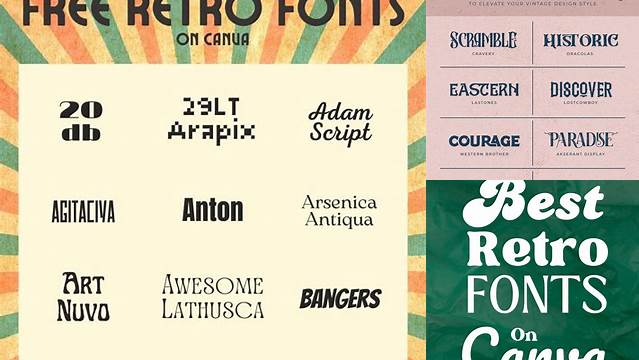
Canva's Best Free Retro Fonts For Vintage Designs
Retro fonts have made a huge comeback, and for good reason! These fonts evoke nostalgia, adding a touch of vintage charm and personality to your designs. If you're looking to infuse your projects with a retro vibe, Canva is an excellent platform to explore. Canva offers a wide selection of free retro fonts that can elevate your designs, whether you're creating social media graphics, posters, logos, or website content. In this guide, we'll dive into the world of retro fonts available on Canva, discuss how to use them effectively, and provide tips for creating stunning vintage-inspired designs.
What are Retro Fonts?
Before we delve into the specific fonts available on Canva, let's first understand what exactly constitutes a retro font. Retro fonts are typefaces that draw inspiration from design trends of past eras, typically ranging from the early 20th century to the 1980s. These fonts often feature distinct characteristics that were popular during their respective time periods. Think of the bold, geometric shapes of Art Deco fonts, the groovy, psychedelic lettering of the 1960s, or the pixelated, futuristic fonts of the 1980s. Retro fonts can instantly transport your audience back in time, creating a sense of nostalgia and familiarity. These fonts often carry an incredible amount of personality and can make your designs stand out. If you are looking to create a vintage feel, then consider using these types of fonts for your titles and headers. Remember that the key to creating an authentic vintage feel with these fonts is to use them sparingly and pair them with other design elements that complement the era you're trying to evoke. For example, a 1950s diner-themed poster might pair a script font with a bold sans-serif, while a 1980s-inspired design might use a neon color palette and a pixelated font. Retro fonts offer a fantastic way to add character and depth to your projects, making them a valuable tool in any designer's toolkit. The sheer variety of styles available means you can find the perfect font to match the mood and message of your design, creating a visually appealing and memorable experience for your audience. Whether you're aiming for a subtle nod to the past or a full-blown vintage aesthetic, Canva's selection of free retro fonts provides plenty of options to experiment with and bring your creative vision to life.
Why Use Retro Fonts in Your Designs?
So, why should you consider using retro fonts in your designs? There are several compelling reasons. First and foremost, retro fonts can add a unique and eye-catching element to your projects. In a world saturated with modern, minimalist designs, a retro font can help your work stand out from the crowd. They can inject personality and character into your projects, making them more memorable and engaging. Retro fonts are excellent for creating a specific mood or atmosphere. If you're designing a poster for a 1950s-themed event, for instance, a classic script or serif font from that era can instantly set the tone. Similarly, a bold, geometric font reminiscent of the Art Deco period can add a touch of elegance and sophistication to your designs. Nostalgia is a powerful emotion, and retro fonts can tap into that feeling, creating a connection with your audience. By using fonts that evoke a sense of the past, you can resonate with viewers who have fond memories of those eras. This can be particularly effective in marketing campaigns or branding materials that aim to create a sense of heritage or authenticity. Retro fonts are versatile and can be used in a wide range of applications, from website headers and logos to posters and social media graphics. Their versatility makes them a valuable asset for designers working on diverse projects. With Canva's extensive library of free retro fonts, you have a wealth of options at your fingertips to experiment with and incorporate into your work. Using retro fonts effectively often involves balancing them with more modern elements to avoid an overly dated look. For example, pairing a vintage script font with a clean sans-serif for body text can create a sophisticated and balanced design. Remember, the goal is to enhance your design, not to overwhelm it with nostalgia. A well-chosen retro font can be the perfect finishing touch, adding character and visual interest to your project while maintaining a contemporary feel.
Popular Free Retro Fonts on Canva
Canva offers a fantastic array of free retro fonts, each with its own unique personality and style. Let's take a look at some popular options that you can use to add a vintage touch to your designs. Amatic SC is a condensed sans-serif font that exudes a playful and casual retro vibe. Its slightly quirky letterforms make it perfect for headlines, posters, and social media graphics. Amatic SC is particularly well-suited for designs that aim for a fun, approachable aesthetic. Bebas Neue is another popular sans-serif font that boasts clean lines and a tall, condensed design. Its modern yet retro feel makes it a versatile choice for a wide range of projects. Bebas Neue is often used in headlines, logos, and website banners, adding a touch of sophistication and elegance. League Gothic is a classic sans-serif font with a strong, geometric structure. Inspired by early 20th-century typography, League Gothic brings a sense of vintage authority to your designs. It's an excellent choice for posters, flyers, and headlines that demand attention. Oswald is a versatile sans-serif font that combines classic proportions with a contemporary feel. Its rounded letterforms give it a friendly and approachable vibe, while its overall structure ensures excellent legibility. Oswald works well in both headlines and body text, making it a practical choice for a variety of projects. Playfair Display is an elegant serif font with high contrast and delicate serifs. Its vintage charm makes it perfect for creating sophisticated designs with a touch of old-world glamour. Playfair Display is often used in headlines, invitations, and branding materials. Pacifico is a beautiful script font that evokes the carefree spirit of mid-century America. Its flowing letterforms and playful curves make it ideal for designs that aim for a retro, handwritten feel. Pacifico is often used in logos, posters, and social media graphics. Permanent Marker is a bold, handwritten font that exudes a raw and authentic energy. Its marker-style letterforms bring a touch of grunge and personality to your designs. Permanent Marker is a great choice for posters, flyers, and social media graphics that need to stand out. These are just a few examples of the many free retro fonts available on Canva. Remember to experiment with different fonts and combinations to find the perfect style for your project. Consider the overall mood you want to create and choose fonts that align with your vision. Don't be afraid to mix and match fonts to add visual interest and create a unique look. By exploring Canva's extensive font library and experimenting with different options, you can discover hidden gems and create stunning retro-inspired designs.
Tips for Using Retro Fonts Effectively
Using retro fonts effectively requires a bit of finesse. While these fonts can add character and charm to your designs, they can also appear dated or overwhelming if not used correctly. Here are some tips to help you incorporate retro fonts into your projects seamlessly. Pair retro fonts with modern elements to create a balanced and contemporary design. For example, combine a vintage script font with a clean sans-serif for body text. This approach ensures that your design feels both nostalgic and fresh. Avoid using too many retro fonts in a single design. Overusing vintage typefaces can make your design look cluttered and dated. Stick to one or two retro fonts and complement them with simpler, more modern fonts. Consider the context of your design when choosing a retro font. A font that works well for a vintage-themed poster might not be suitable for a corporate presentation. Select fonts that align with the overall message and purpose of your design. Pay attention to legibility. While retro fonts can be visually appealing, it's essential to ensure that your text remains easy to read. Choose fonts that are clear and legible, especially for body text. Adjust the font size and spacing to improve readability if necessary. Use color palettes that complement the era you're trying to evoke. For example, pastel colors and muted tones often work well with 1950s-inspired fonts, while neon colors and bold hues can enhance 1980s-themed designs. Experiment with different font combinations to create visual interest. Try pairing a bold retro font with a delicate script or a geometric sans-serif with a handwritten typeface. Don't be afraid to break the rules and explore unconventional combinations. Use retro fonts sparingly to create emphasis. A retro font can be a powerful tool for highlighting key words or phrases in your design. Use it for headlines, subheadings, or calls to action to draw the viewer's attention. Consider the overall aesthetic of your design. Retro fonts should complement your other design elements, such as images, illustrations, and graphics. Ensure that your fonts work harmoniously with the rest of your design to create a cohesive and visually appealing composition. Get inspired by vintage designs. Look at old posters, advertisements, and packaging designs for inspiration. Study how designers of the past used retro fonts and incorporate those techniques into your own work. By following these tips, you can effectively use retro fonts to create stunning and memorable designs that capture the essence of vintage typography. Remember that the key is to balance nostalgia with modernity, creating designs that feel both timeless and contemporary.
Examples of Designs Using Retro Fonts on Canva
To further illustrate the versatility of retro fonts on Canva, let's explore some examples of how these typefaces can be used in various design projects. Imagine you're creating a poster for a 1950s-themed diner. You could use a classic script font like Pacifico for the diner's name and a bold sans-serif font like Bebas Neue for the menu items. Combine this with vintage-inspired illustrations and a pastel color palette to create an authentic retro look. For a design inspired by the 1980s, you might use a pixelated font or a bold, geometric typeface like League Gothic for the headlines. Pair this with neon colors, geometric shapes, and a touch of grunge to capture the edgy aesthetic of the era. Think about designing a logo for a vintage clothing store. An elegant serif font like Playfair Display or a handwritten script font can convey a sense of timeless style and sophistication. Combine the font with a simple, classic logo mark and a muted color palette to create a memorable brand identity. Consider creating social media graphics for a retro music event. Use a combination of retro fonts, such as Amatic SC and Oswald, to create eye-catching headlines and body text. Incorporate vintage-inspired images and a bold color palette to promote the event and attract attendees. For a website header, a bold retro font can create a strong visual impact. Use a font like Bebas Neue or League Gothic for the main headline and pair it with a clean, modern sans-serif font for the body text. This combination will ensure readability while adding a touch of vintage flair. If you are designing an invitation for a vintage-themed wedding, an elegant script font or a classic serif font can set the tone for the event. Use a font like Playfair Display or a delicate script font for the names of the couple and the wedding details. Combine this with a romantic color palette and vintage-inspired illustrations to create a beautiful invitation. These examples demonstrate the wide range of possibilities for using retro fonts on Canva. Whether you're designing posters, logos, social media graphics, or invitations, retro fonts can add a unique and memorable touch to your projects. The key is to experiment with different fonts, combinations, and design elements to find the perfect style for your specific needs. Canva's extensive library of free retro fonts and its user-friendly interface make it easy to bring your vintage-inspired design visions to life. By exploring the platform's font options and following the tips outlined in this guide, you can create stunning designs that capture the essence of retro typography.
Retro fonts are a powerful tool for adding character, personality, and a touch of nostalgia to your designs. Canva's extensive library of free retro fonts makes it easy to explore the world of vintage typography and incorporate these typefaces into your projects. By understanding the characteristics of different retro fonts, learning how to use them effectively, and drawing inspiration from vintage designs, you can create stunning visuals that capture the essence of past eras. Whether you're designing posters, logos, social media graphics, or invitations, retro fonts can help you stand out from the crowd and create a lasting impression. So, dive into Canva's font library, experiment with different options, and unleash your creativity. With a little practice and a keen eye for design, you can master the art of using retro fonts and create visuals that are both timeless and contemporary. Remember to balance vintage elements with modern aesthetics to create designs that feel fresh and engaging. Consider the overall message and purpose of your design when choosing fonts, and always prioritize legibility. By following these guidelines, you can confidently use retro fonts to elevate your designs and communicate your message effectively. Canva's user-friendly interface and vast selection of fonts make it the perfect platform for exploring the world of retro typography. So, go ahead and start experimenting – you might be surprised at the beautiful and impactful designs you can create with a little bit of vintage flair.